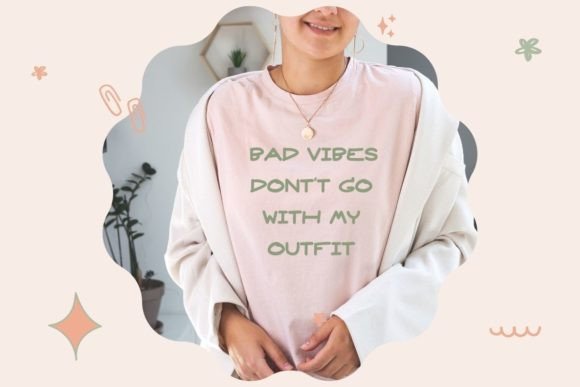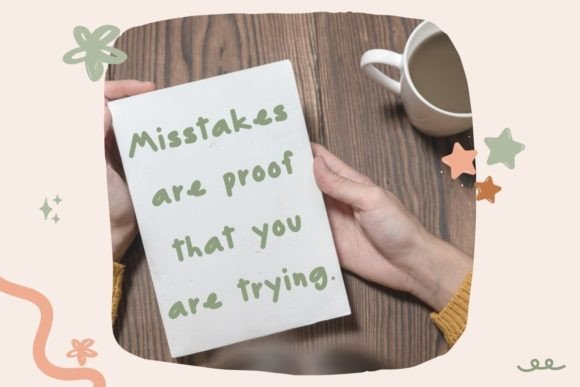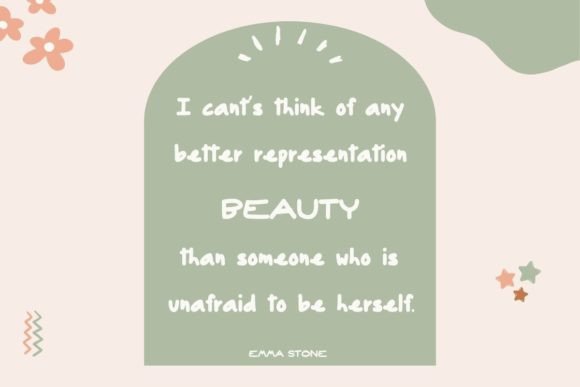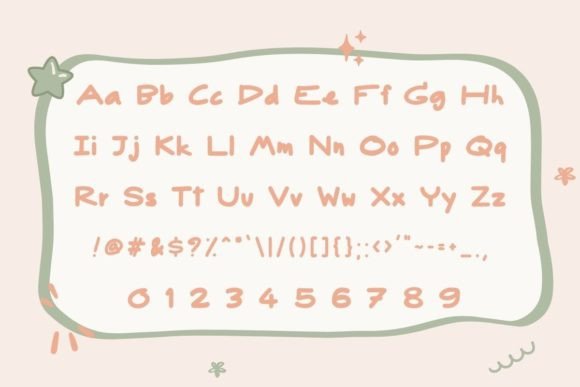
Introduction to Isabela Font
Remember the joy of creating handmade cards for your loved ones on special occasions? The hours spent in your craft room, gathering colorful papers, stickers, and glitter, only to bring a smile to someone’s face with your unique creation? As designers, we’ve all experienced that special moment when our creative project comes to life, and we’re excited to introduce you to a design resource that can help bring your ideas to life – the Isabela Font.
With its light and playful characteristics, the Isabela Font is perfect for a wide range of design projects, from kids’ crafts to web graphics and sublimation projects. Its high-quality design and transparent background make it a valuable asset for designers looking to add a personal touch to their work.
- High-quality, professional font for creative projects, perfect for designers and artists.
- Features a transparent background, allowing for seamless integration with any design.
- Isabela Font is ideal for use in digital designs, such as logos, graphics, and web pages.
- Unique, elegant design with a modern twist, making it perfect for creative and artistic projects.
Honest Review: Isabela Font
I recently came across the Isabela Font and was excited to dive in and see what it had to offer. As a designer, I’m always on the lookout for high-quality design resources that can elevate my creative projects. The Isabela Font did not disappoint.
One of the things that stands out about this font is its high quality. It’s clear that the designers behind it put a lot of thought and care into creating a beautiful, versatile font that can be used in a variety of contexts. The transparent background is a nice touch, making it easy to use in creative projects.
- ⚠️ Limited character set, which may not be ideal for longer texts
- ⚠️ Not as customizable as some other fonts
Overall, I’m really impressed with the Isabela Font. It’s a great addition to any designer’s toolkit and is sure to add a touch of elegance to any creative project. If you’re looking for a high-quality font to use in your next project, I would definitely recommend giving it a try.
Use Isabela Font with a transparent background to create a seamless design. Experiment with different font sizes and styles to create visual interest. You can also pair Isabela Font with other design elements, such as graphics and images, to create a unique look.
Isabela Font is ideal for creative projects, such as:
- Graphic design and visual identity